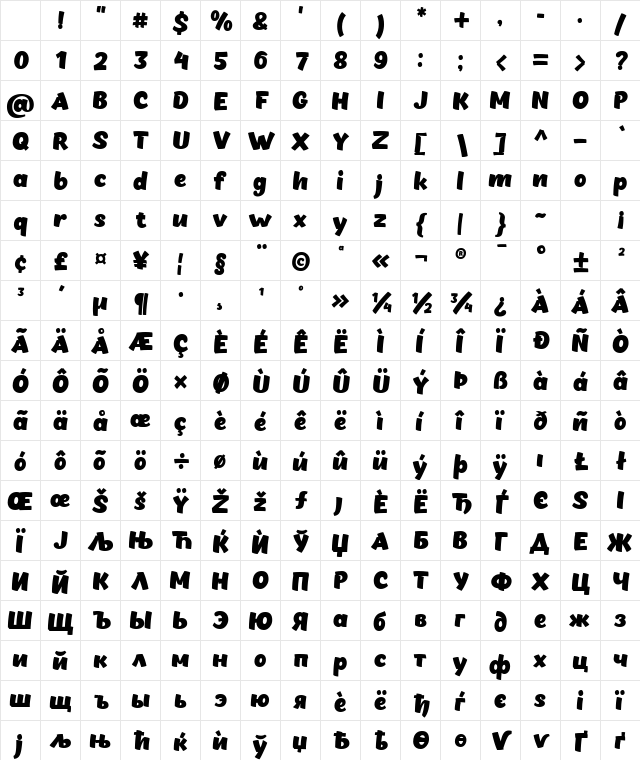
Complete Chekharda Bold Italic glyph index. Displaying only characters natively supported by Chekharda Bold Italic font.
Chekharda is a composed and adaptable typeface that performs quietly and consistently across a wide range of design contexts. The slanted form adds forward momentum and visual energy. Its bold stroke weight gives it real presence on the page.
Pro Tip: Use Chekharda for emphasis, pull quotes, and subheadings where its slanted energy can add rhythm to the layout.